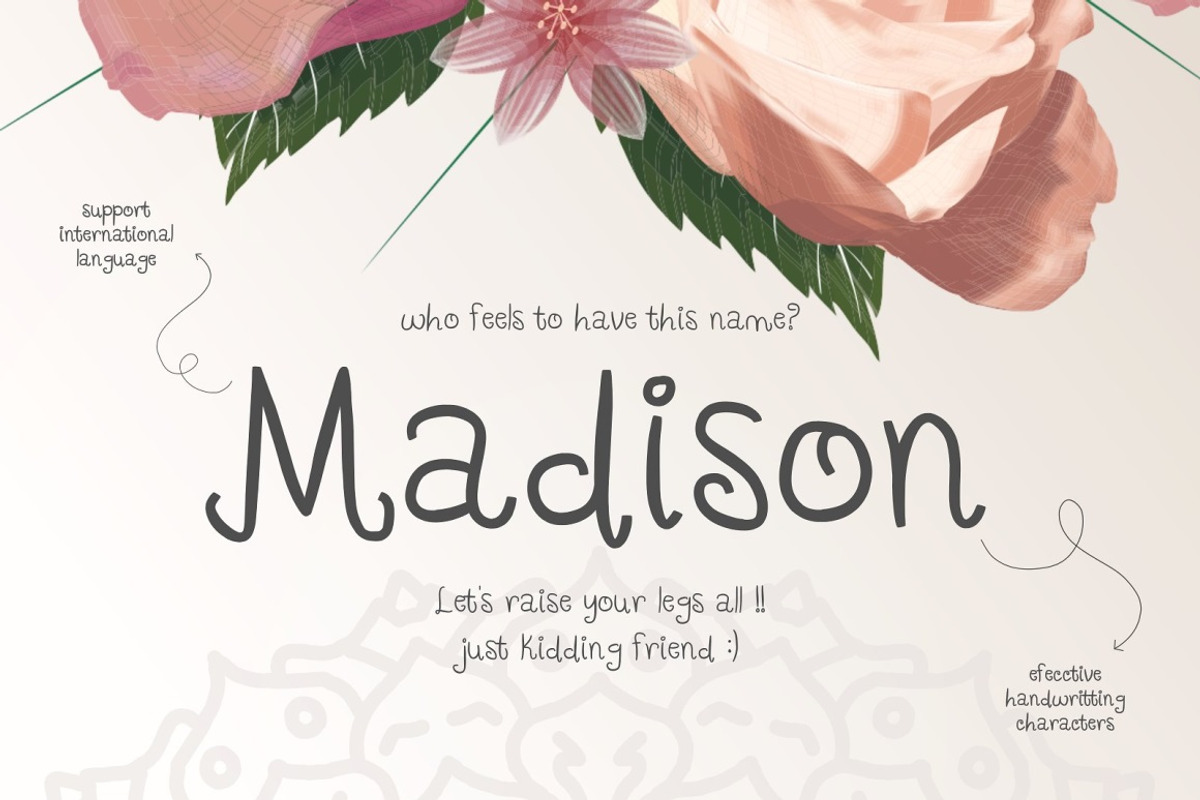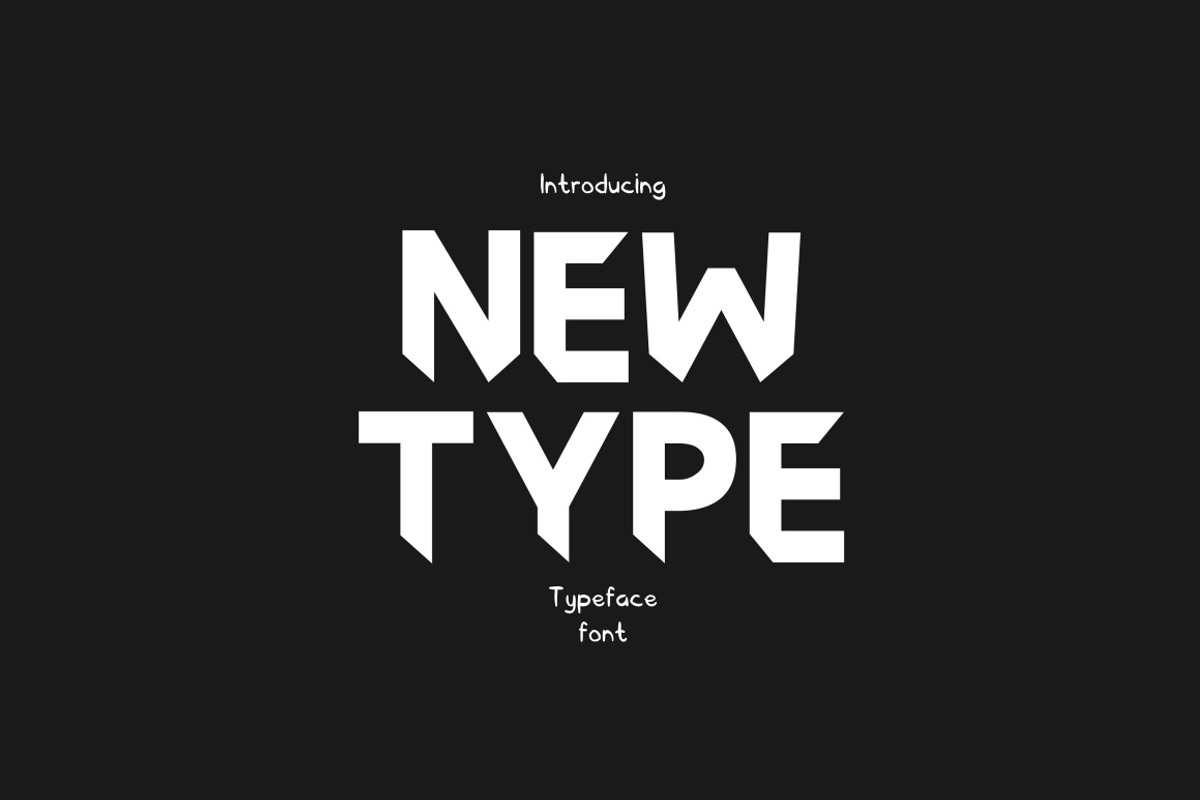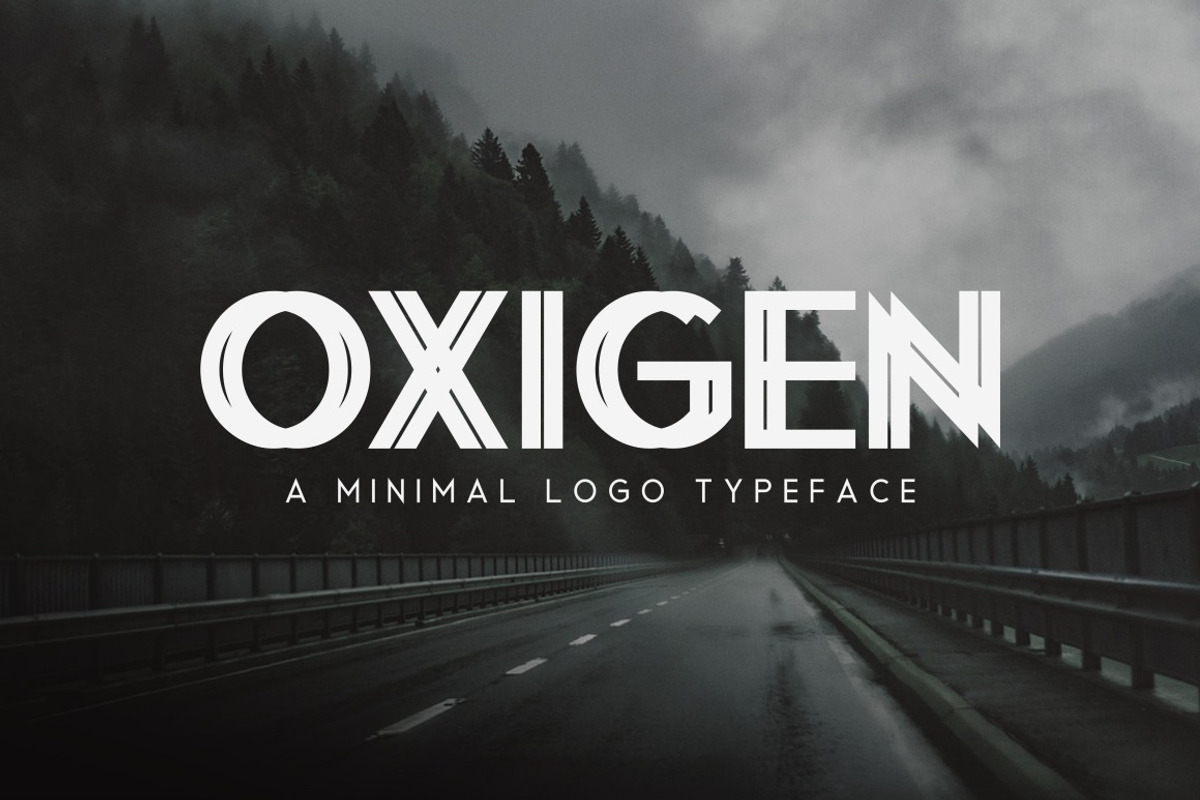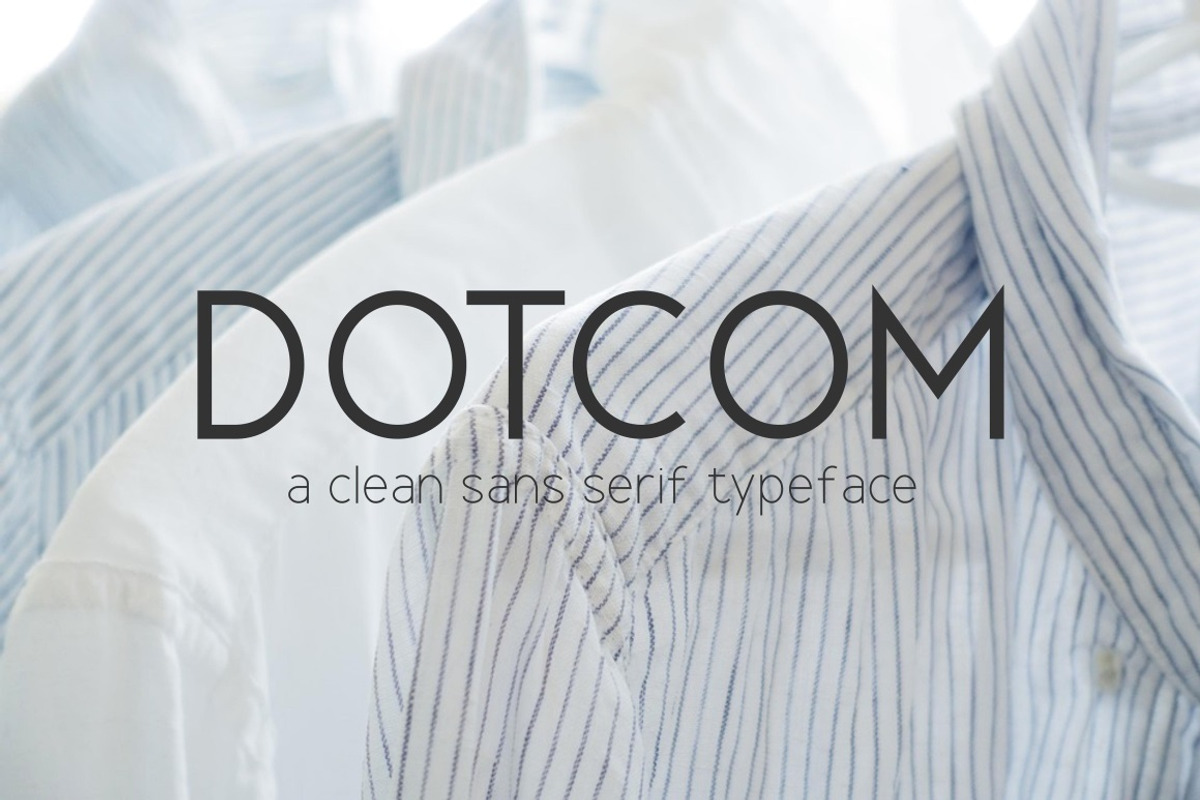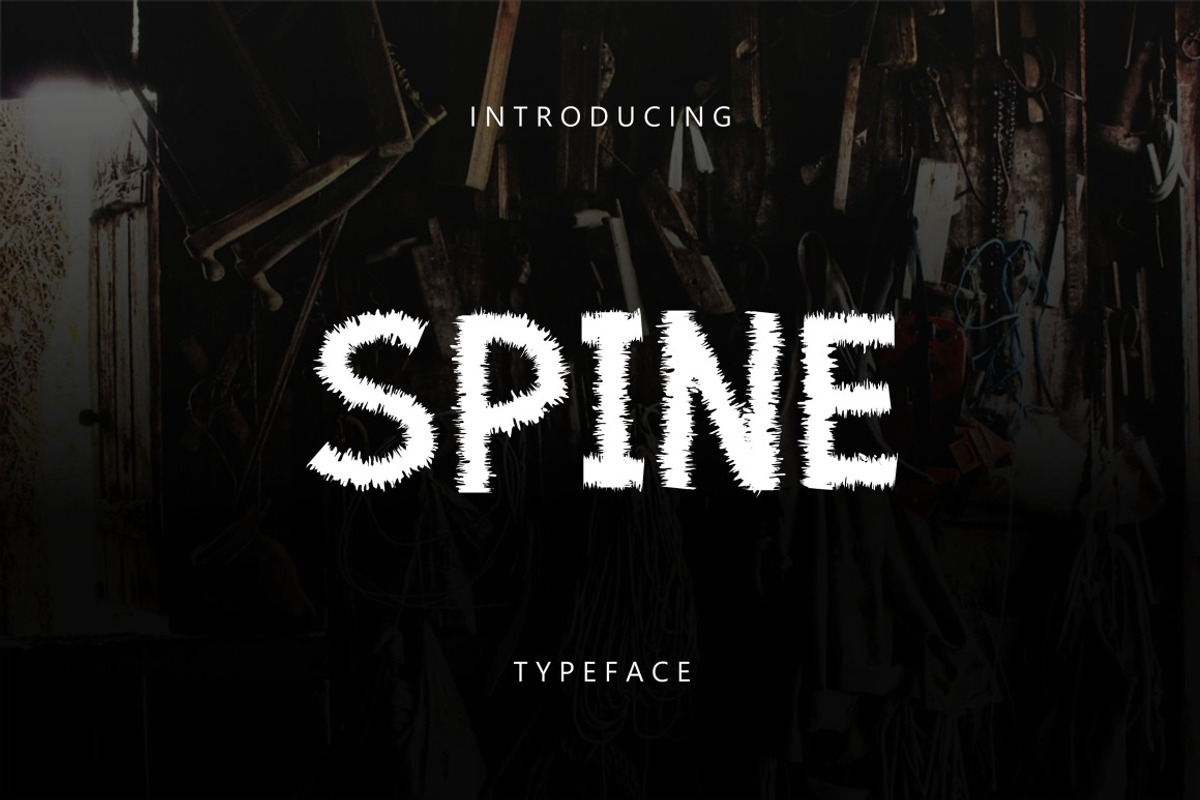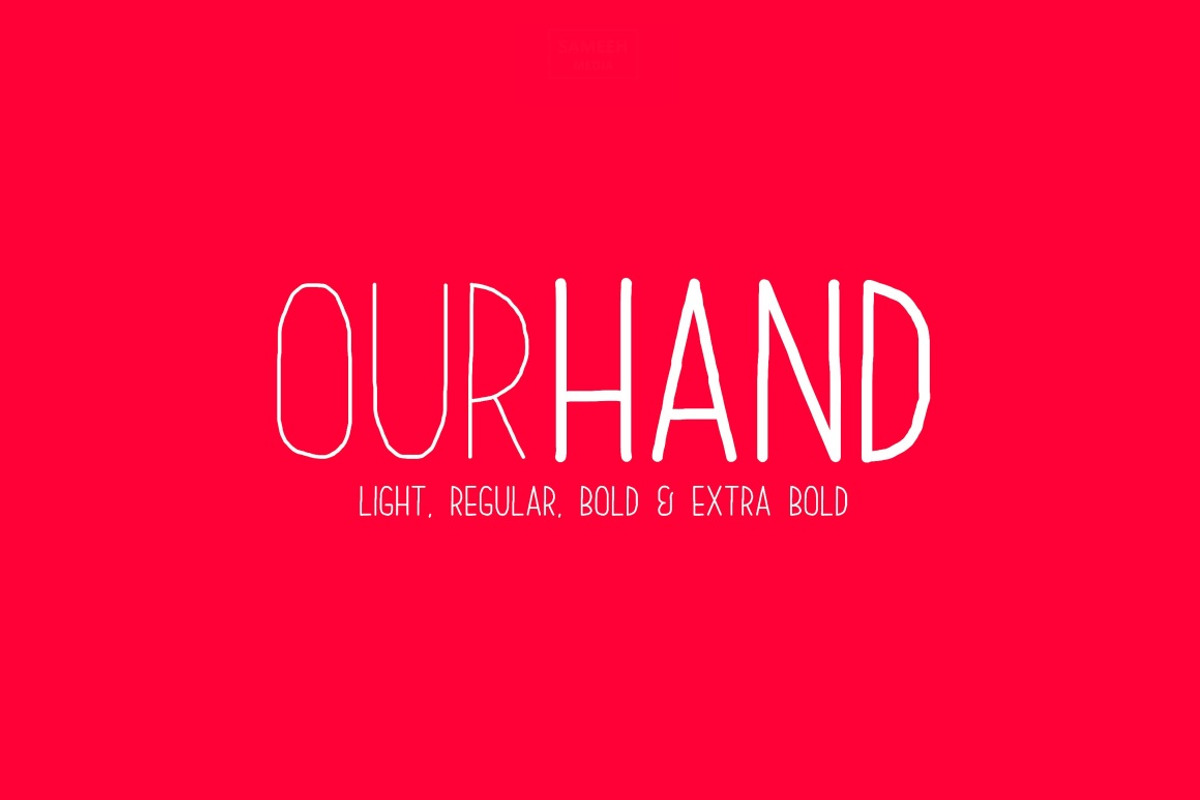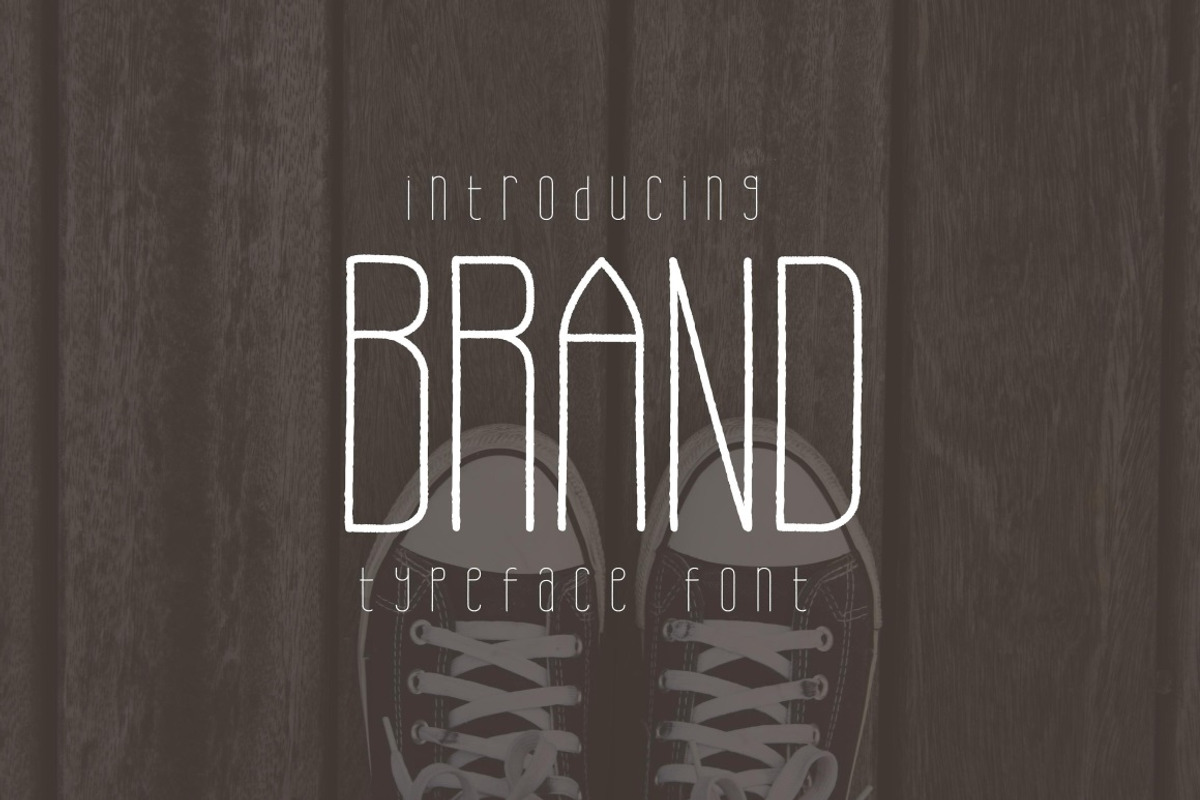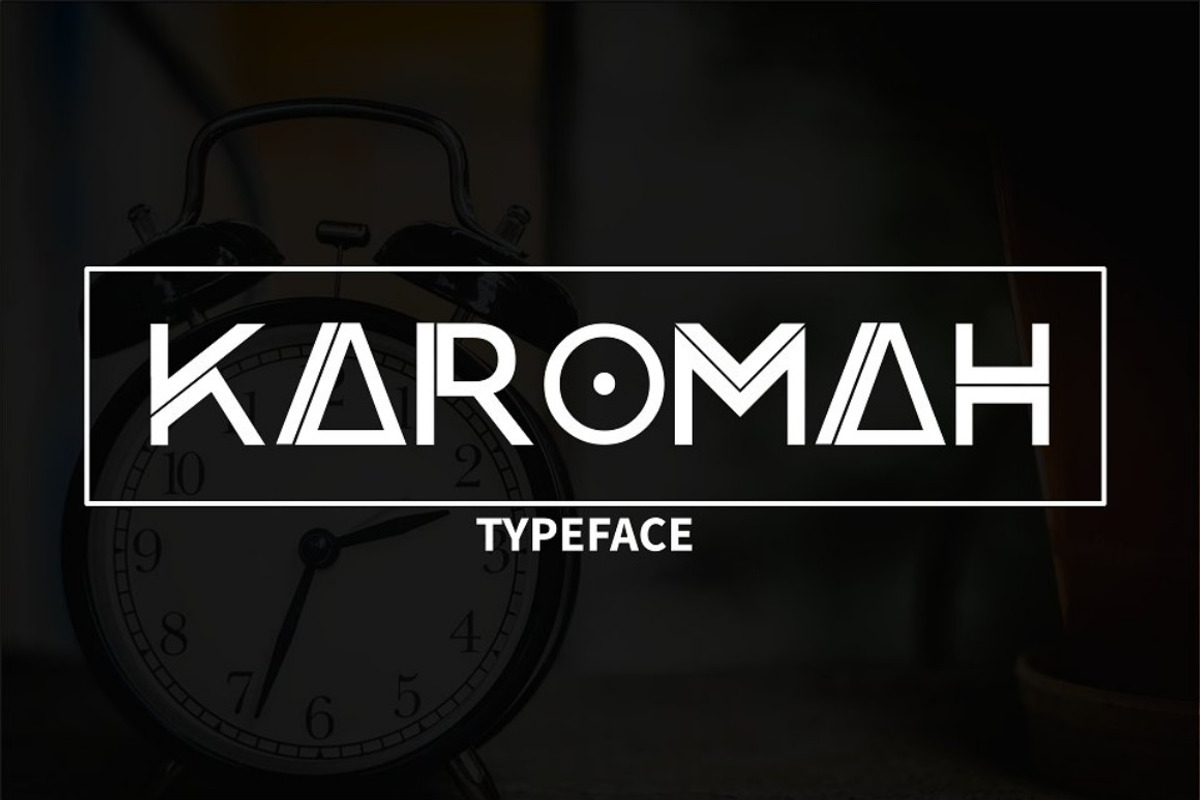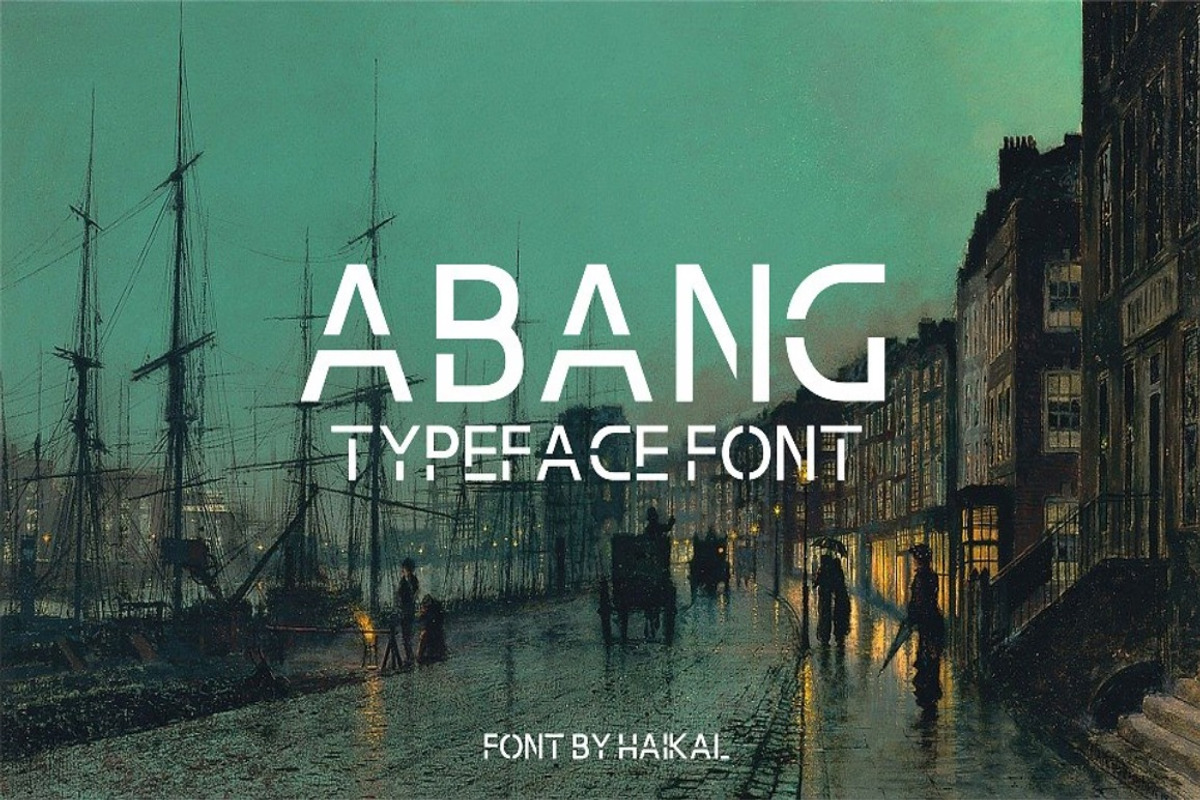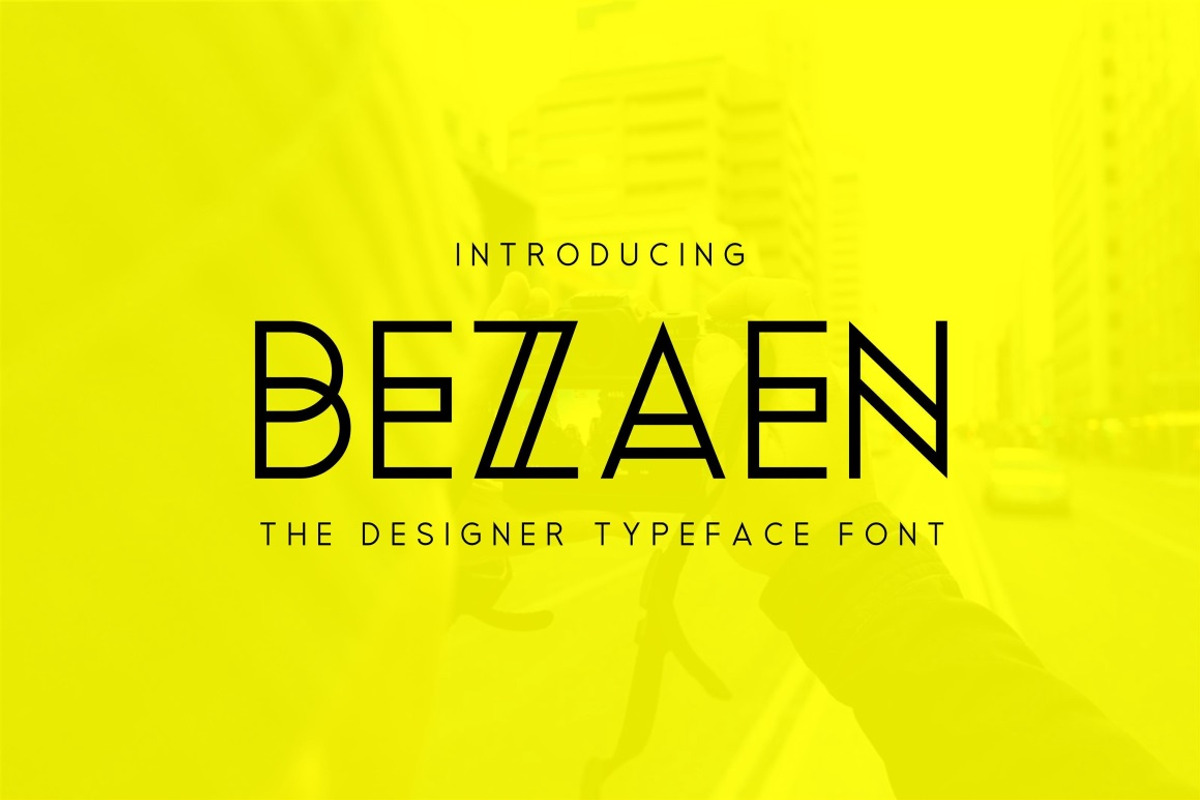
This excellent selection contains 31 font families combined with a lot of family and styles, that makes it total 67 unique fonts.
These Sans Serif Font Bundle are perfect for menus, headings, invitations, branding, apparels, packaging, posters, logos, and much more.
With this bundle, you’re able to create a ton of designs with different themes. So get ready to take advantage of these amazing collection.
- Luna, A Luxurios Font Family https://crmrkt.com/R2jb0m
- Quick, An Elegant Sans Serif https://crmrkt.com/pMj2wg
- Crops, A Clean Sans Serif https://crmrkt.com/yRg1w0
- Calcio, Ultra Condensed https://crmrkt.com/WBMDjW
- Original, A Minimalist Font https://crmrkt.com/0yX91N
- The Edmund https://crmrkt.com/PeMDXm
- It's Madison Font https://crmrkt.com/BVX4q2
- Manuvers, Handmade Sans Font https://crmrkt.com/M6pkrW
- Nixmat, A Brand Identity Font https://crmrkt.com/R2jb2d
- Mabroc https://crmrkt.com/gpBOp8
- Axon, A Minimalist Sans Serif Family https://crmrkt.com/Q24820
- Rehab, The Display Sans Serif Font https://crmrkt.com/qMKQ4y
- Newtype Typeface Font https://crmrkt.com/Pewaej
- Alaska, Adventure Sans Serif https://crmrkt.com/kVpwVk
- Bemand, A Brand Identity Font https://crmrkt.com/zqka40
- Oxigen, A Minimal Logo Typeface https://crmrkt.com/vlygEP
- Texas, A Romantic Typeface https://crmrkt.com/OOG1Ag
- Bezaen Typeface Font https://crmrkt.com/JqW6Jx
- Brand Typeface Font https://crmrkt.com/lO74VR
- Gorden, A Hand Style Font https://crmrkt.com/D30KvV
- Drawsans Typeface Font https://crmrkt.com/5jE0rr
- Zeky Typeface Font https://crmrkt.com/JqW6v1
- Spine Typeface Font https://crmrkt.com/WBVd8W
- Magz Typeface Font https://crmrkt.com/pMj2ez
- Ambisi Typeface Font https://crmrkt.com/7OXq3X
- Box Typeface Font https://crmrkt.com/GKvQ0a
- Our Hand Family https://crmrkt.com/bD0vMz
- Newstyle Typeface Font https://crmrkt.com/82Xv52
- Karomah Typeface Font https://crmrkt.com/rMxVBr
- Abang Typeface Font https://crmrkt.com/3GXEyy
- Dotcom Family https://crmrkt.com/wM6kMm